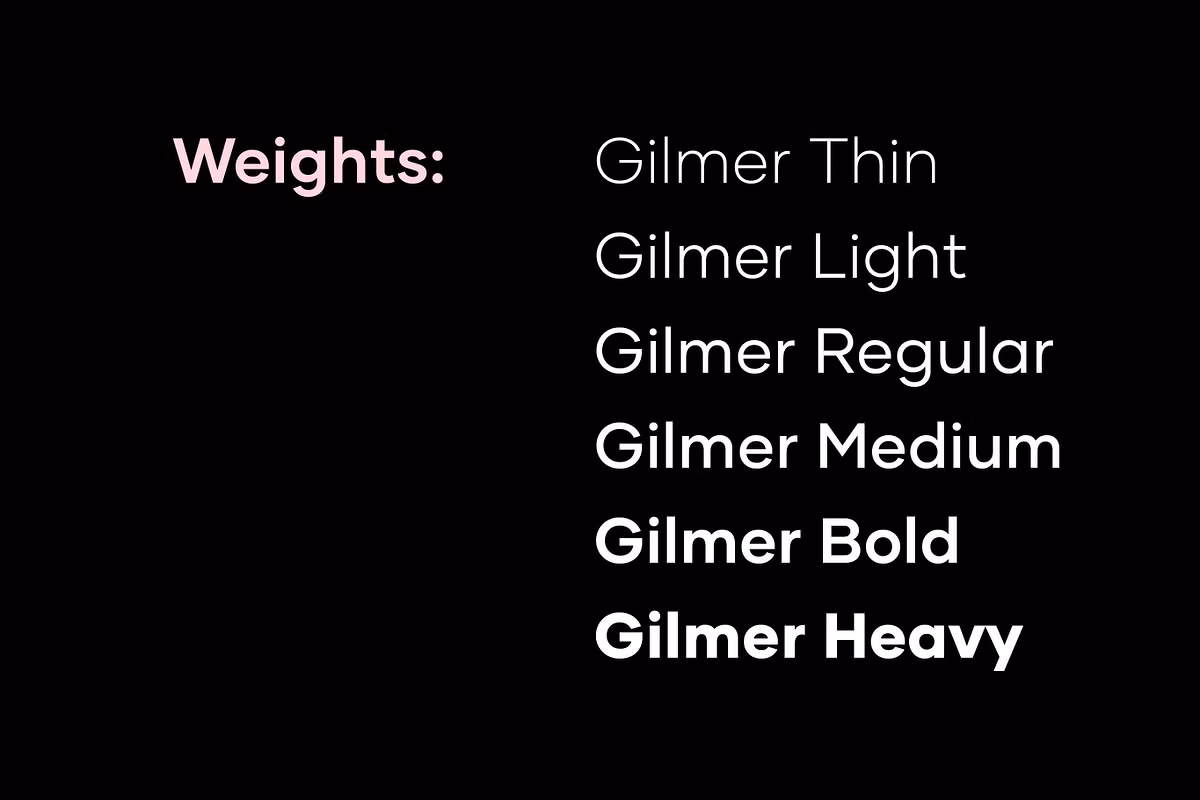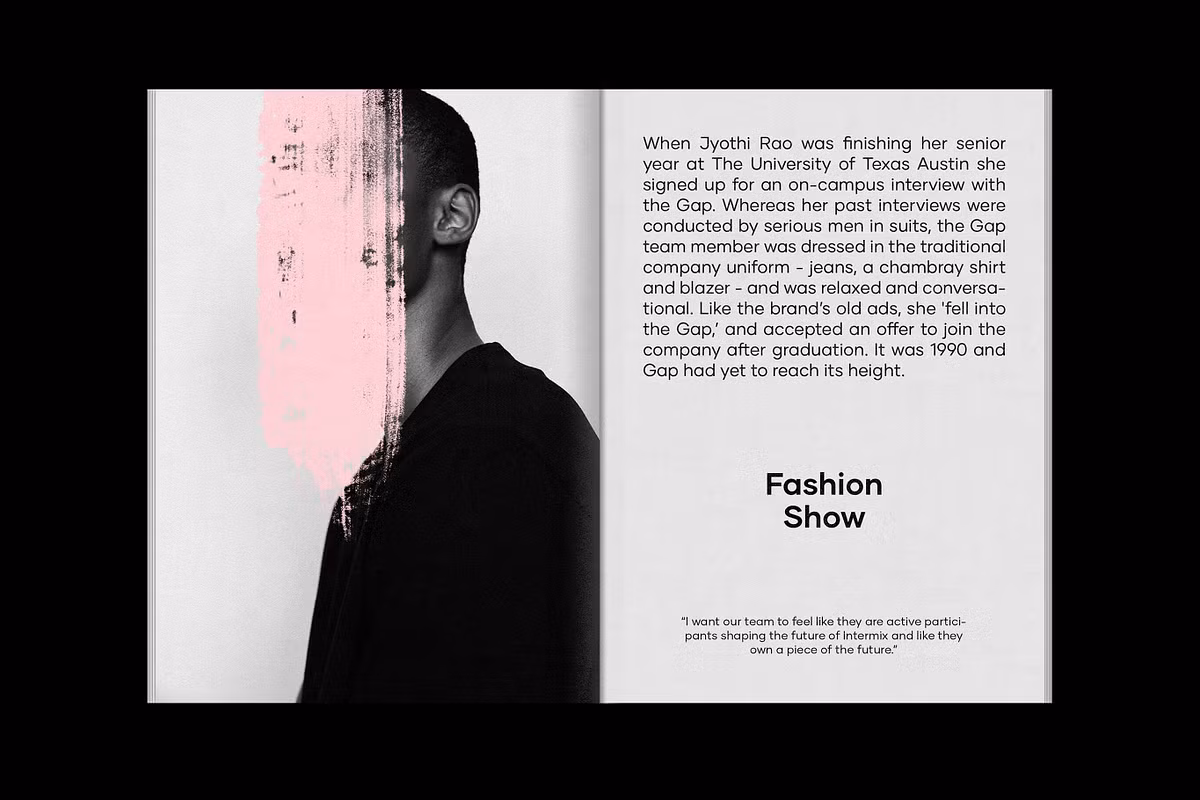
Unlock Gilmer: The Geometric Sans Serif for Stunning Designs
Do you need a font, for the design projects you are working on? Gilmer is a sans‑serif font family that can add a look to your work. Gilmer takes ideas from the typefaces such, as Futura and Avant Garde. Gilmer mixes style with style details. I have used Gilmer on design projects. I liked how Gilmer looks. Gilmer works for design applications.
The Aesthetic Appeal of Gilmer
I see that Gilmer has a x-height. The big x-height makes the letters easier to read. Gives Gilmer a look. Gilmer’s geometric letter shapes have edges and low stroke contrast. Those shapes remind the reader of neo‑grotesk fonts that became popular in the century. Gilmer’s design works well for print and digital media. Gilmer looks good. Works well.
Why Choose a Geometric Sans Serif?
I like Geometric sans serifs like Gilmer because Geometric sans serifs like Gilmer have lines and a modern look. Here is why I think you should consider using Geometric sans serifs like Gilmer in your designs.
- Versatility: Gilmer adapts to situations. I have seen Gilmer help when you are designing the magazine. I have seen Gilmer help when you are creating the poster. I have seen Gilmer help when you are working on the branding project.
- Elegance: The geometric shapes give the elegance a feel. The elegance fits high end brands. The elegance works well for designs.
- Readability: The large x-height makes your text easy to read. The large x-height keeps your text clear at sizes.
I think these features make Gilmer stand out.
Gilmer’s Features for Designers
Gilmer offers the designers a range of features that the designers need:
- 6 Styles: Choose from a variety of styles to suit your design’s tone, from light to bold.
- 6 Weights: The different weights give you flexibility in your typography. The weights also let you build a hierarchy in your designs. I like how the weights make each piece of text stand out in its place.
- Latin Support: I notice that Gilmer supports languages. Gilmer is a choice, for audiences.
- 500+ Glyphs Set: The glyphs set has glyphs. The glyphs set lets you create your type designs.
- OpenType Features: Use features. Advanced typographic features let you customize the text more and control each letter. OpenType Features let me adjust the text how I want.
- Precise Kerning: Enjoy refined spacing between characters, enhancing the overall aesthetic of your text.
Practical Tips for Using Gilmer in Your Designs
To make the most out of Gilmer, consider these practical tips:
- Pairing: Combine Gilmer, with the matching fonts. Pair Gilmer with the serif typeface, for contrast or pair Gilmer with another sans serif for a look.
- Size and Spacing: I try sizes and line spacings. The x-height makes reading. The x-height lets me use sizes for headlines. Do not hold back on sizes, for headlines.
- Color Choices: I find that using colors makes the font stand out. Gilmer looks striking when you pair Gilmer with hues, on a background.
- Consistency: Keep the style. Use Gilmer, on the branding materials. Gilmer must appear on the business cards and, on the websites.
Addressing Common Questions About Gilmer
If you consider Gilmer, for the design projects you may have some questions, about Gilmer:
- Is Gilmer suitable, for body text? Yes. I think Gilmers large x-height and clean letterforms make Gilmer a good choice for the body text, in print and digital formats.
- Can I use Gilmer for web design? Yes. I have used Gilmer and Gilmer works well. Gilmer has the webfont format that is built for use. Gilmer keeps the text clear on the screens. Gilmer can be used for web design.
- What about language support? There is support, for the different languages. Gilmer’s extended Latin support provides support, for projects.
Conclusion: Why Gilmer is a Must-Have in Your Font Collection
In short Gil